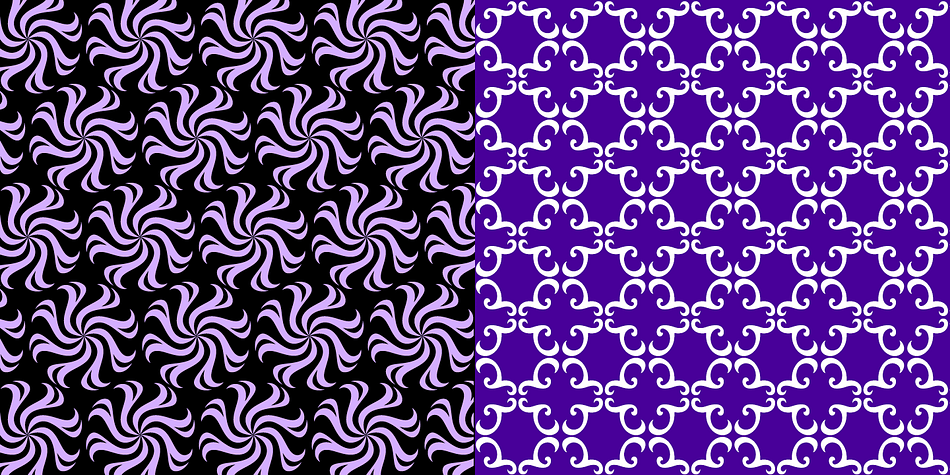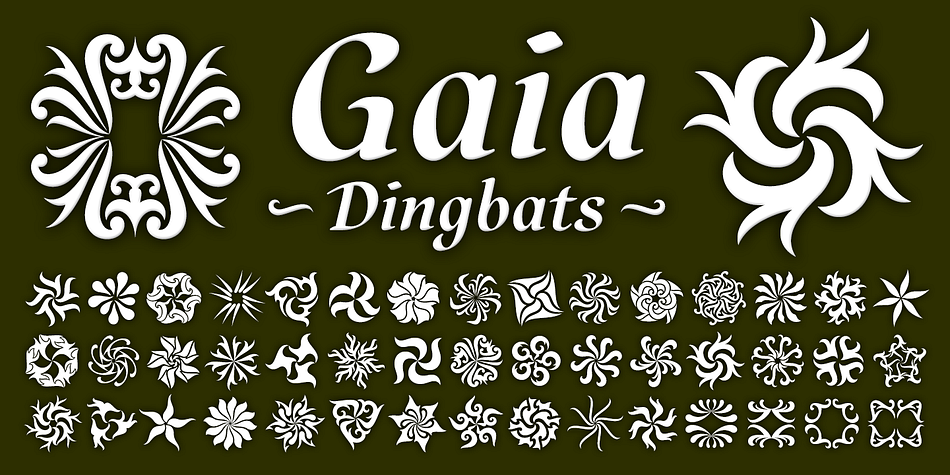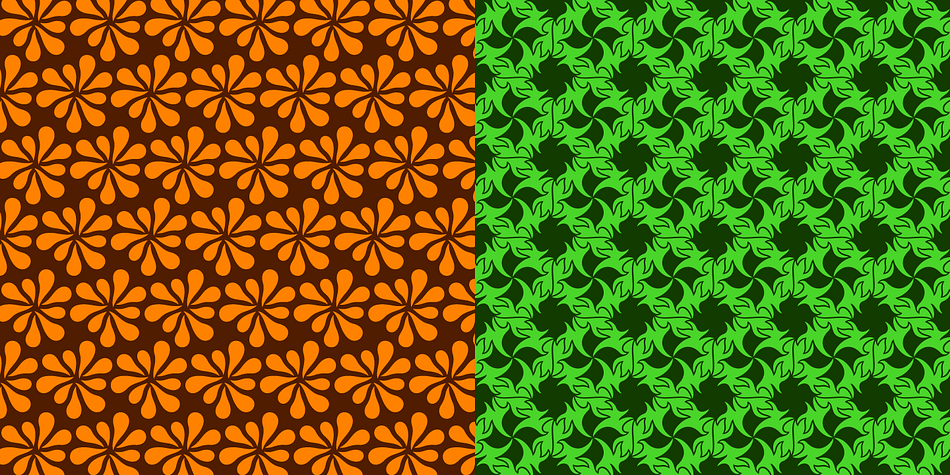
Gaia
Designed by Ricardo Esteves Gomes, Gaia is a dingbat font family published by Outras Fontes.
Gaia is the first dingbat series made by Ricardo Esteves Gomes. Each glyph in this font was designed to be used as single forms or as graphic pattens. When repeated several times, they create some interesting optical effects. Their organic shapes gives a nice feeling of nature. I hope this can be useful for your artworks.
Foundry Outras Fontes
Designer Ricardo Esteves Gomes